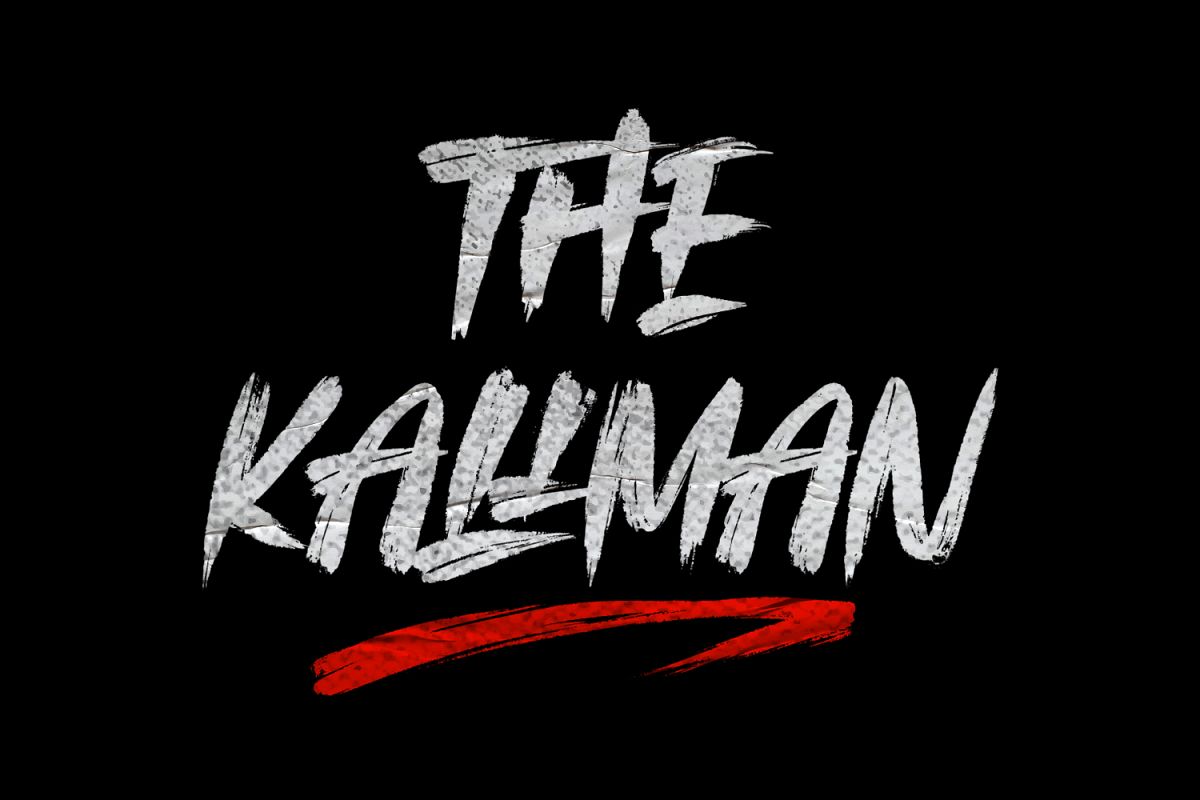
The Kallman
The Kallman Swash
The Kallman font with a natural brush style, which has a
perfect texture makes your work more natural.
The Kallman is ideal for logos, apparel, quotes, product
packaging, or anything which needs a typographic turbo-boost.